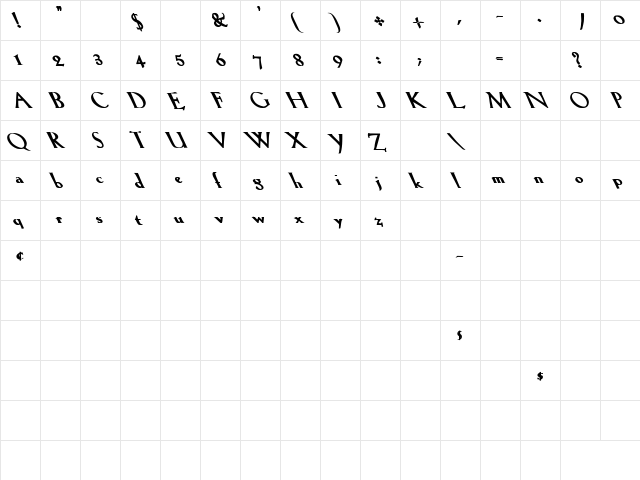
LilHvy bOLD Lefty Bold Font Preview
LilHvy bOLD Lefty Bold
Design Context for LilHvy bOLD Lefty Typeface
LilHvy bOLD Lefty is a composed and adaptable typeface that performs quietly and consistently across a wide range of design contexts. The heavy weight commands attention and anchors typographic hierarchies.
Pro Tip: Use LilHvy bOLD Lefty in both headline and body roles to test its range before committing to a single application.